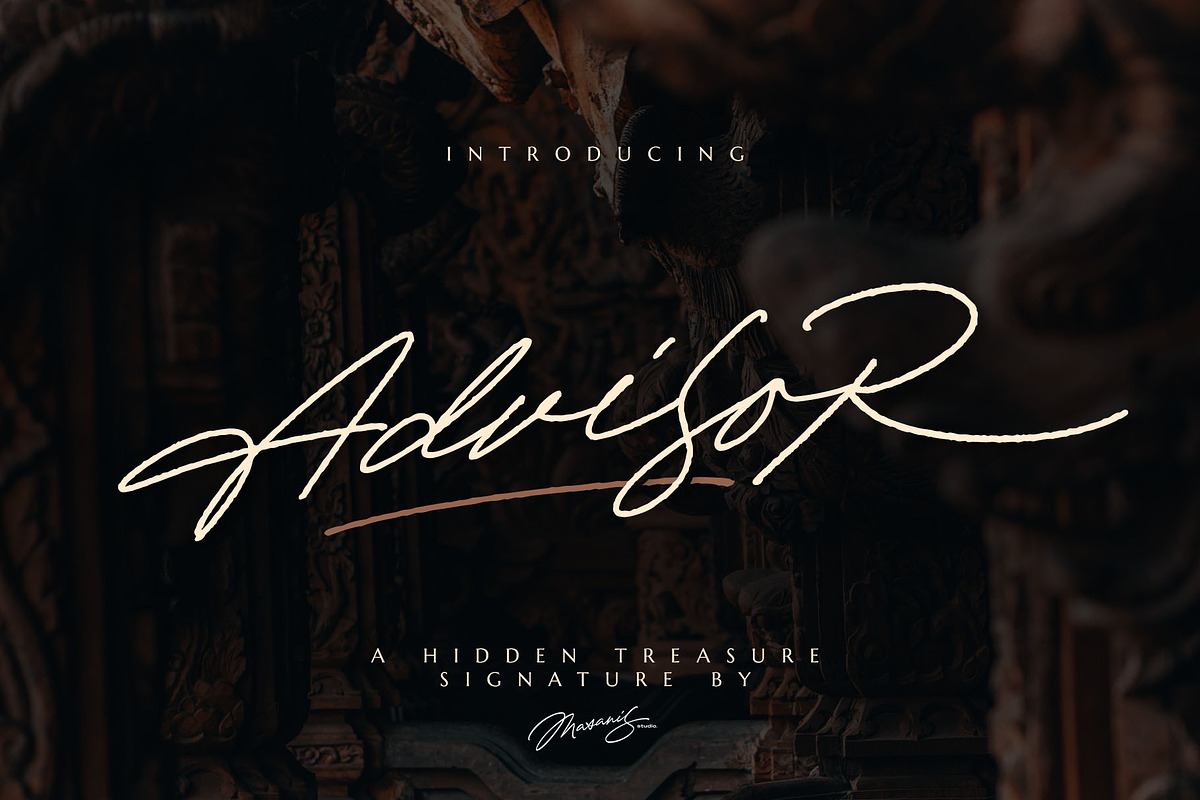
Please note that you must purchase this font for commercial use. You can download Advisor – Treasure Signature Font for free, strictly for personal testing purposes only. Advisor is a luxurious and elegant signature-style script font that captures the essence of handcrafted beauty and sophistication. With its flowing strokes, delicate curves, and refined aesthetic, Advisor Treasure Signature Font Free Download is perfect for branding, wedding invitations, business cards, logos, upscale packaging, and social media graphics.
Designed to mimic a natural, stylish handwritten signature, Advisor adds a personal yet professional touch to your typography. It includes uppercase and lowercase letters, numerals, punctuation, multilingual support, and often stylish ligatures or swashes for enhanced customization.
Whether you're creating a fashion label or a premium identity, Advisor delivers timeless elegance and charm.